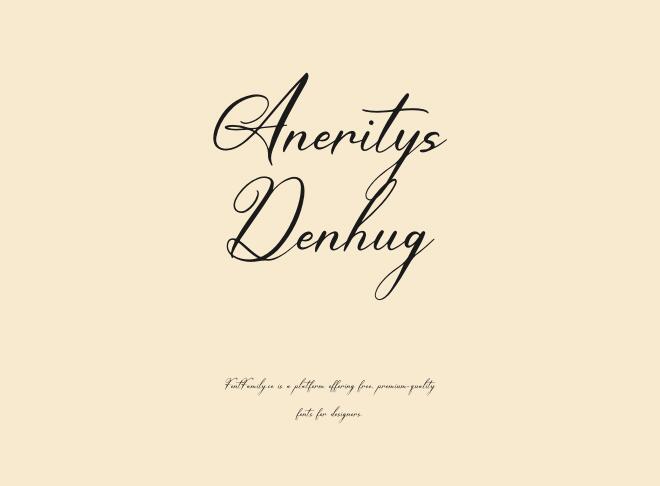
Aneritys Denhug Font
Aneritys Denhug Font is a captivating handwritten typeface designed by Aneritys Design Studio. Its playful and rustic style, combined with modern and decorative elements, makes it an excellent choice for a wide range of design projects. From creative branding and logo design to expressive web content, it adds a unique flair to any design project. Its distinctive style sets it apart from traditional handwritten fonts, offering a fresh and modern twist. The Aneritys Denhug Font is perfect for designers looking to add a touch of personality and uniqueness to their work. Its versatile nature makes it adaptable to both formal and informal contexts, while its clean lines and smooth curves ensure readability across all platforms. With its unique characteristics and charm, the Aneritys Denhug Font is sure to make your designs stand out.